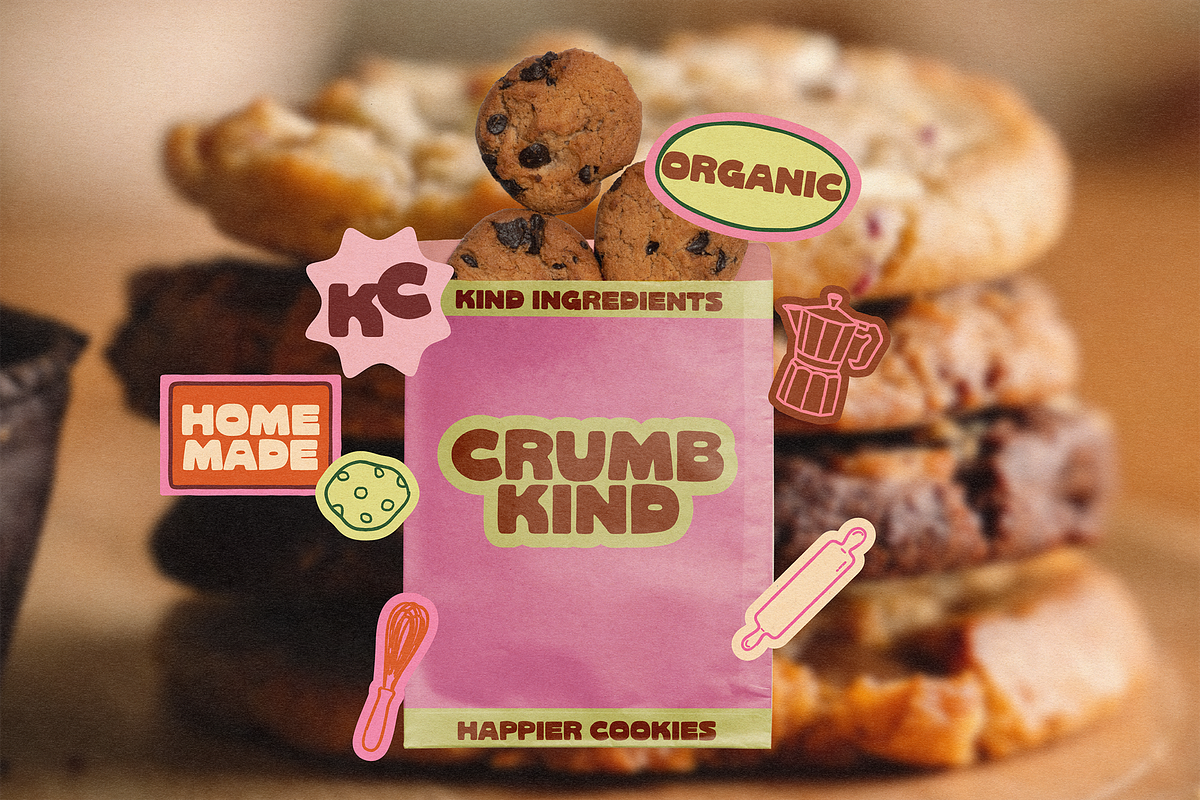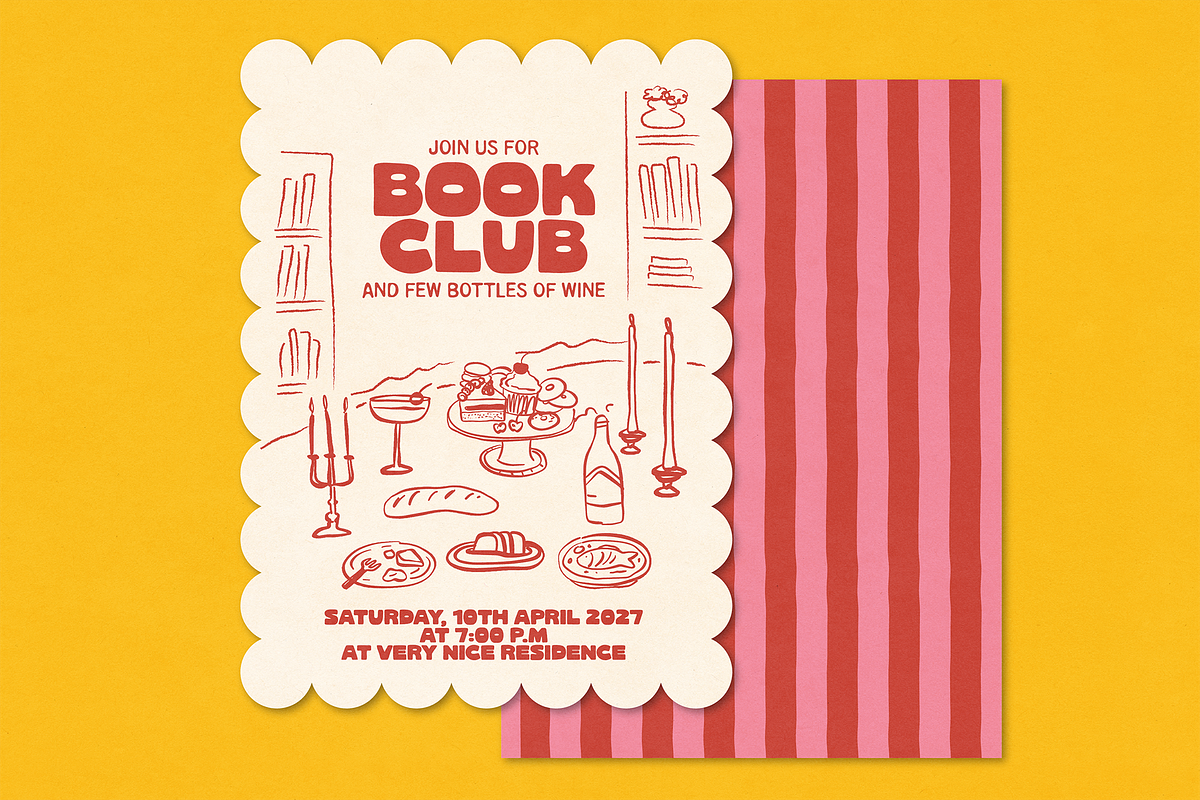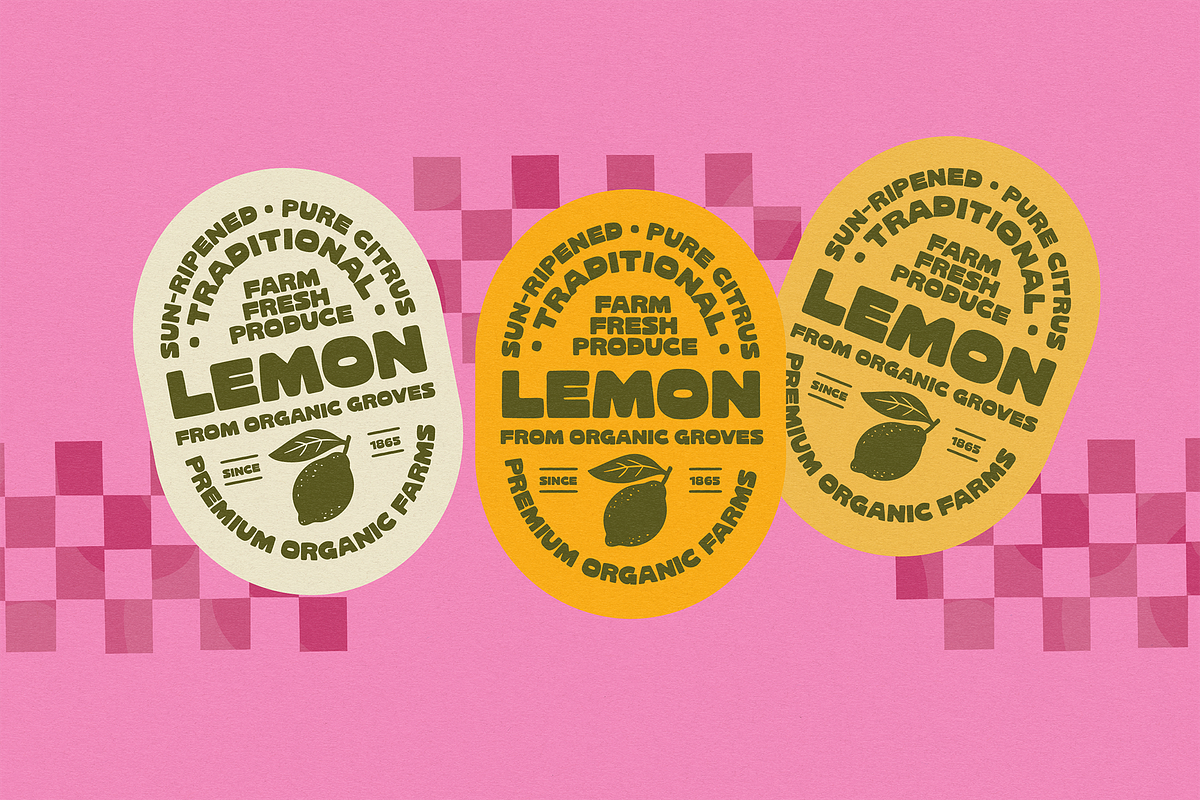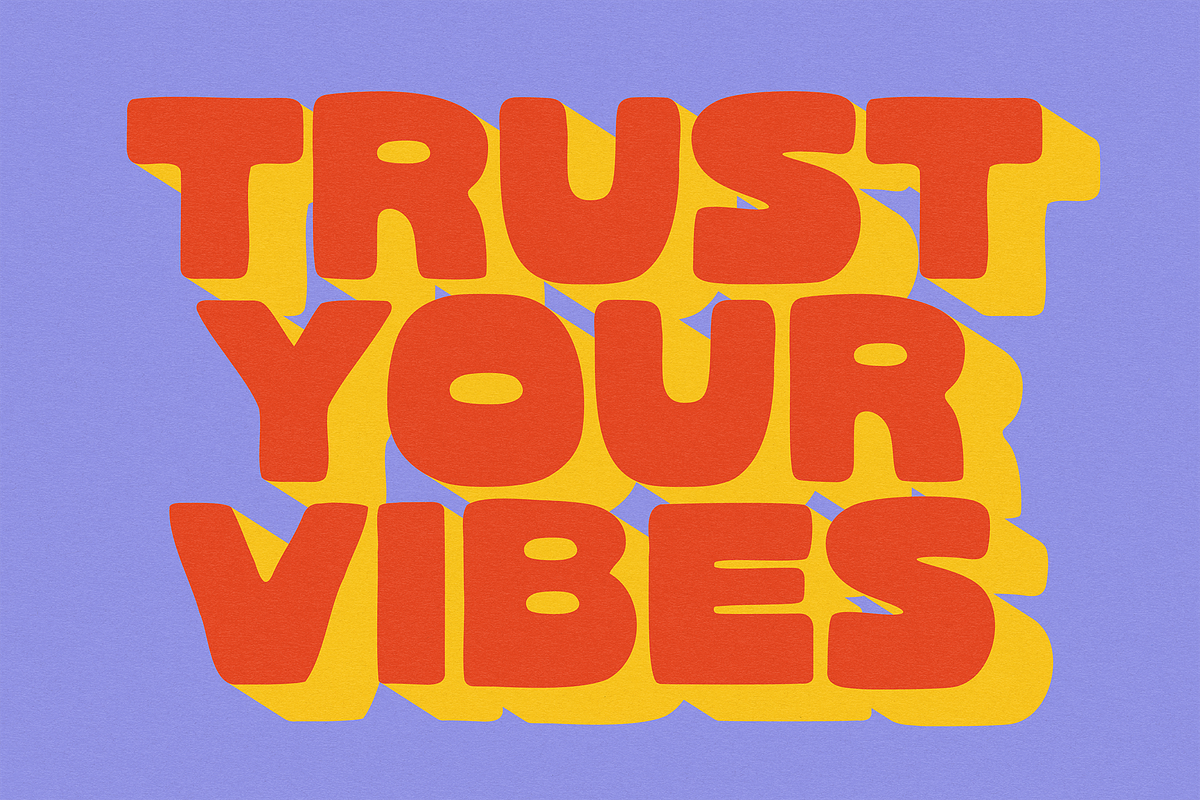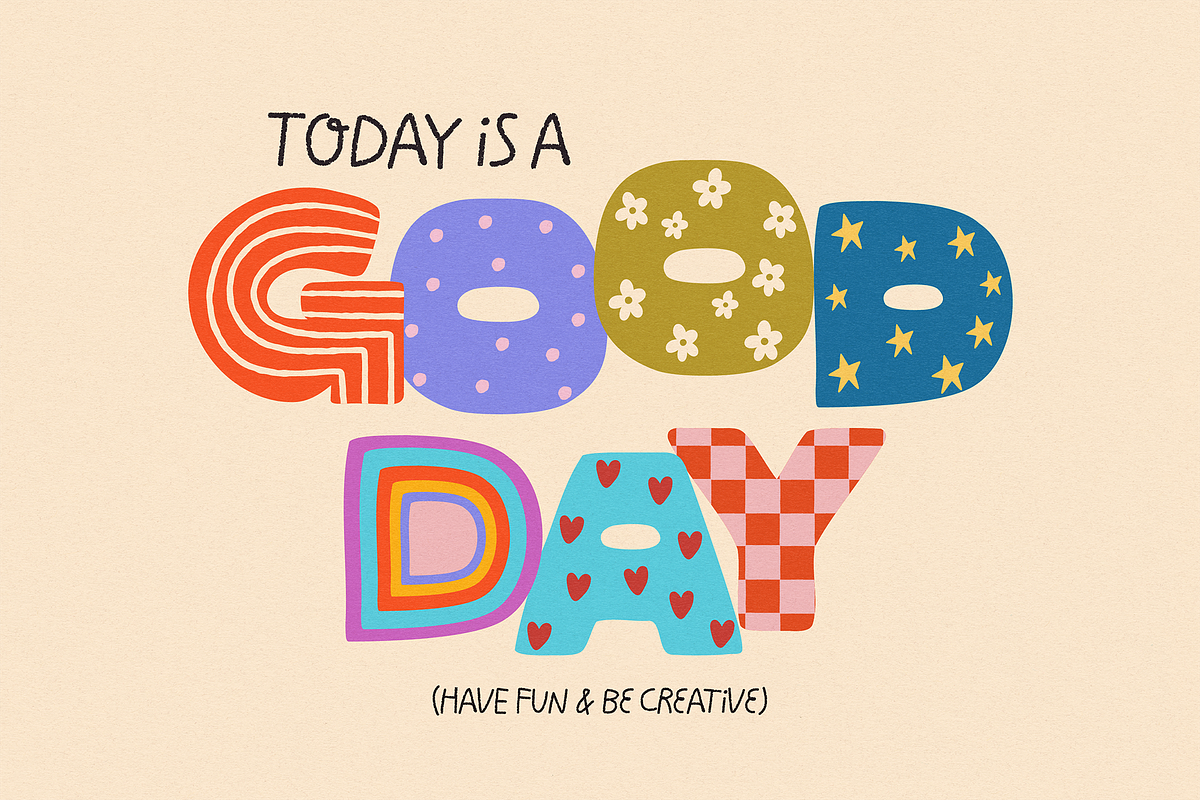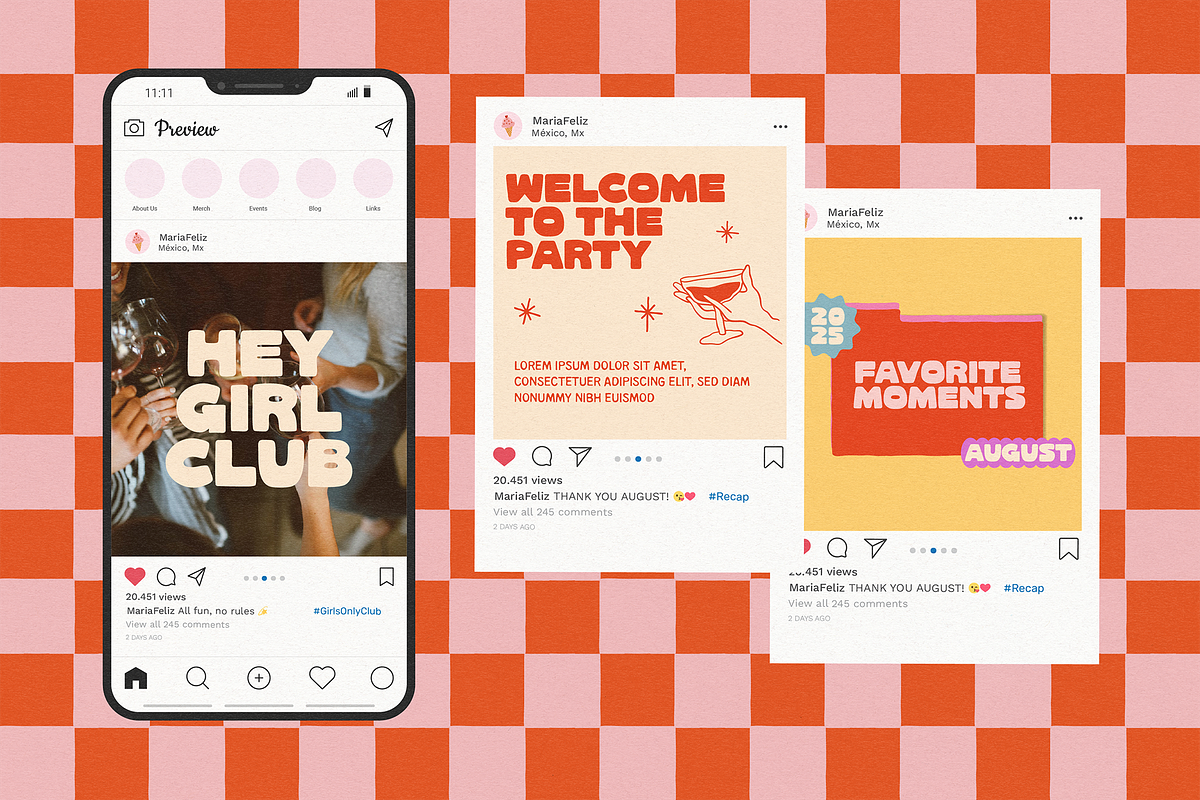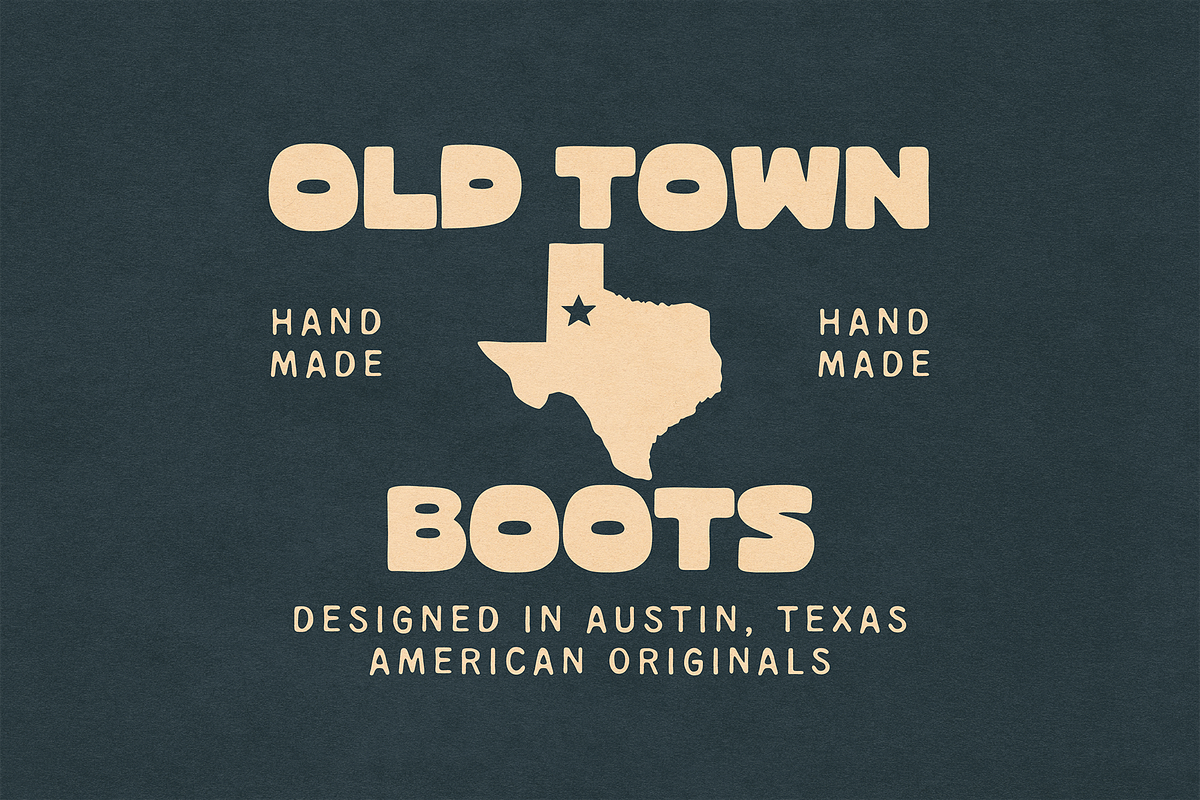
TWO MUCH | CHUNKY FONT
TWO MUCH is a hand-drawn sans font designed to give your creations an organic and irregular touch without going over the top. It’s truly chunky, making it perfect for impactful titles, short phrases, and eye-catching designs.
Inspired by one of my best-selling fonts, TWO MUCH gives you plenty of inspiration and personality for your creative projects!
This font is completely hand-drawn, so don’t expect perfection and that’s exactly what makes it so special! Fun, dynamic, and a little bit formal!